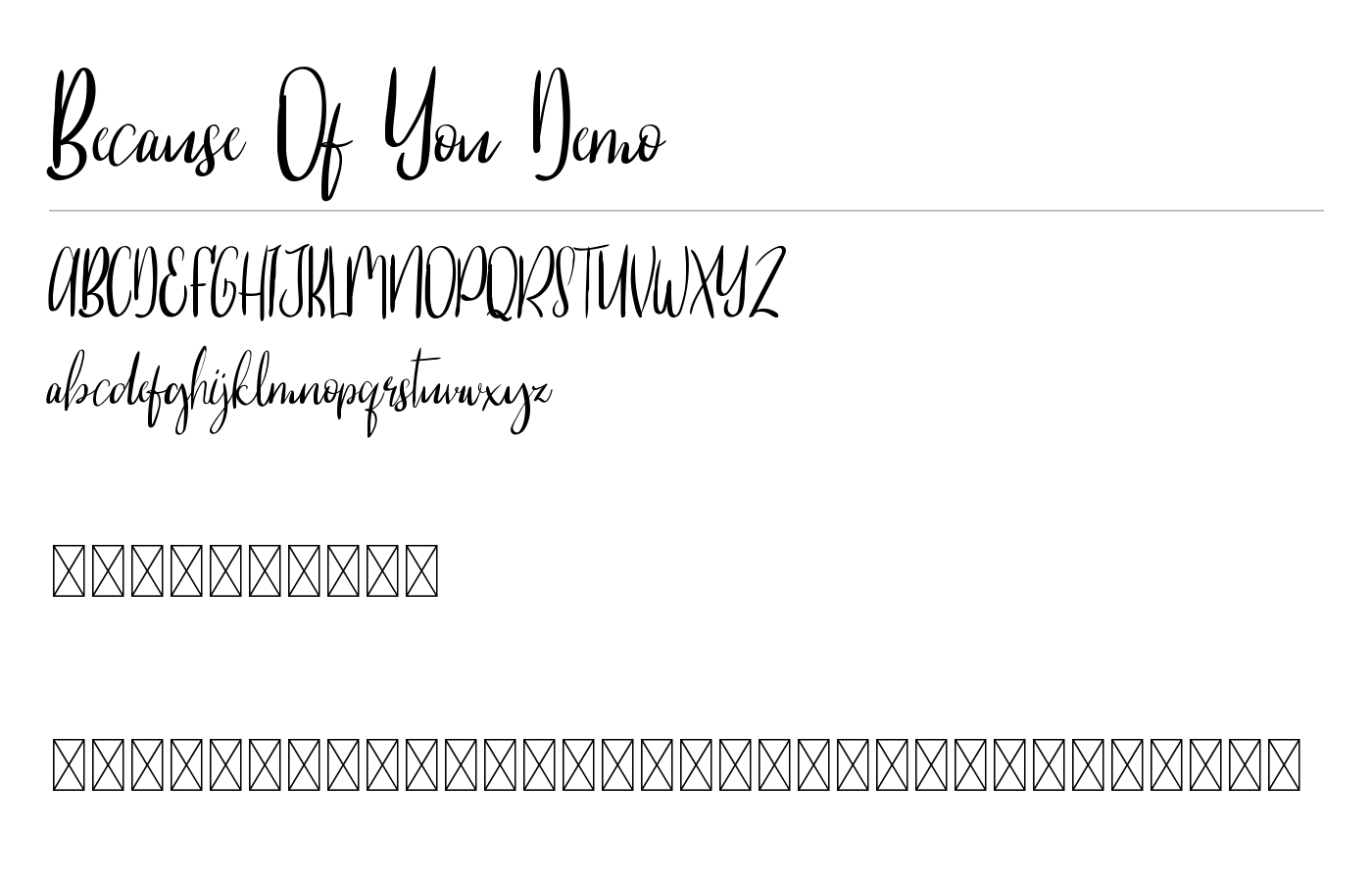
Because Of You Demo is a slender, elegant script font with a hand-drawn feel, featuring tall, narrow letterforms and graceful, flowing curves. Its delicate stroke contrast and casual yet refined style make it perfect for romantic invitations, greeting cards, and stylish branding where a personal, artistic touch is desired. This font adds charm and sophistication without being overly formal, ideal for expressive headlines and logos.
Because Of You Demo Font
About Because Of You Demo Font
| Font family | Because Of You Demo Font |
| Designer | Fajar Saepul Rohman |